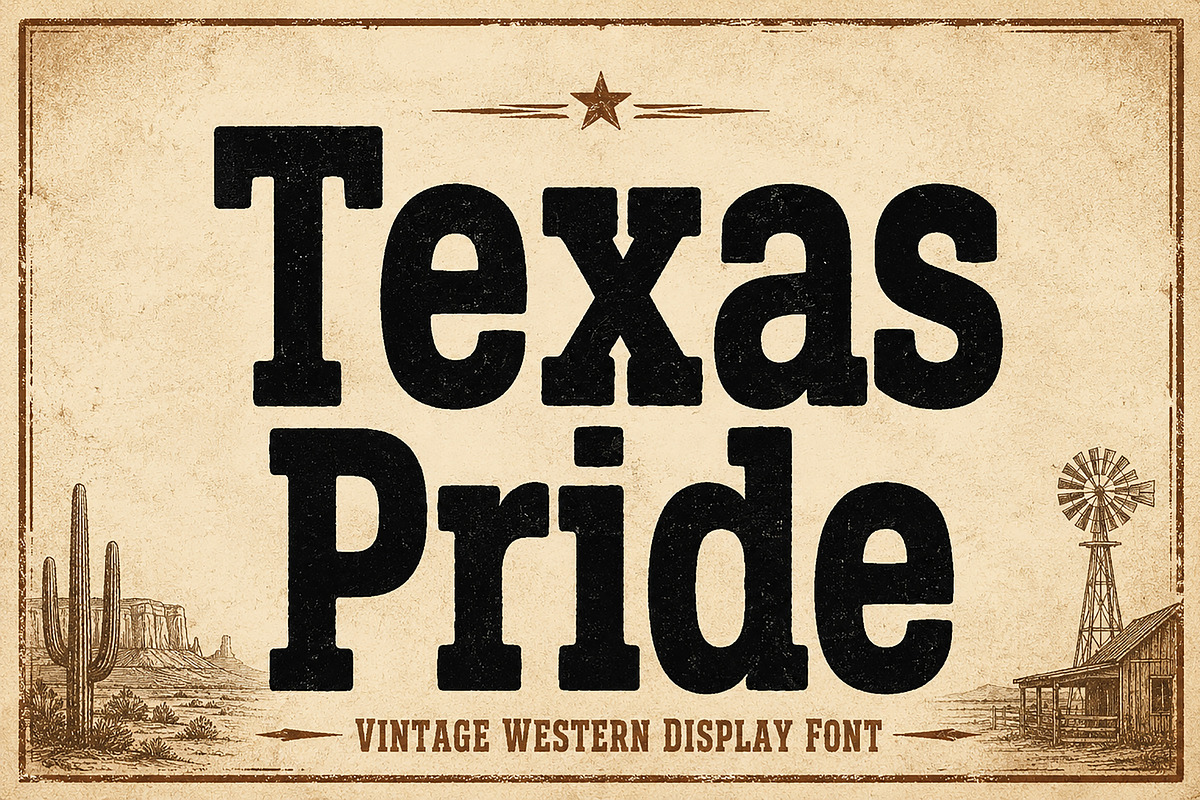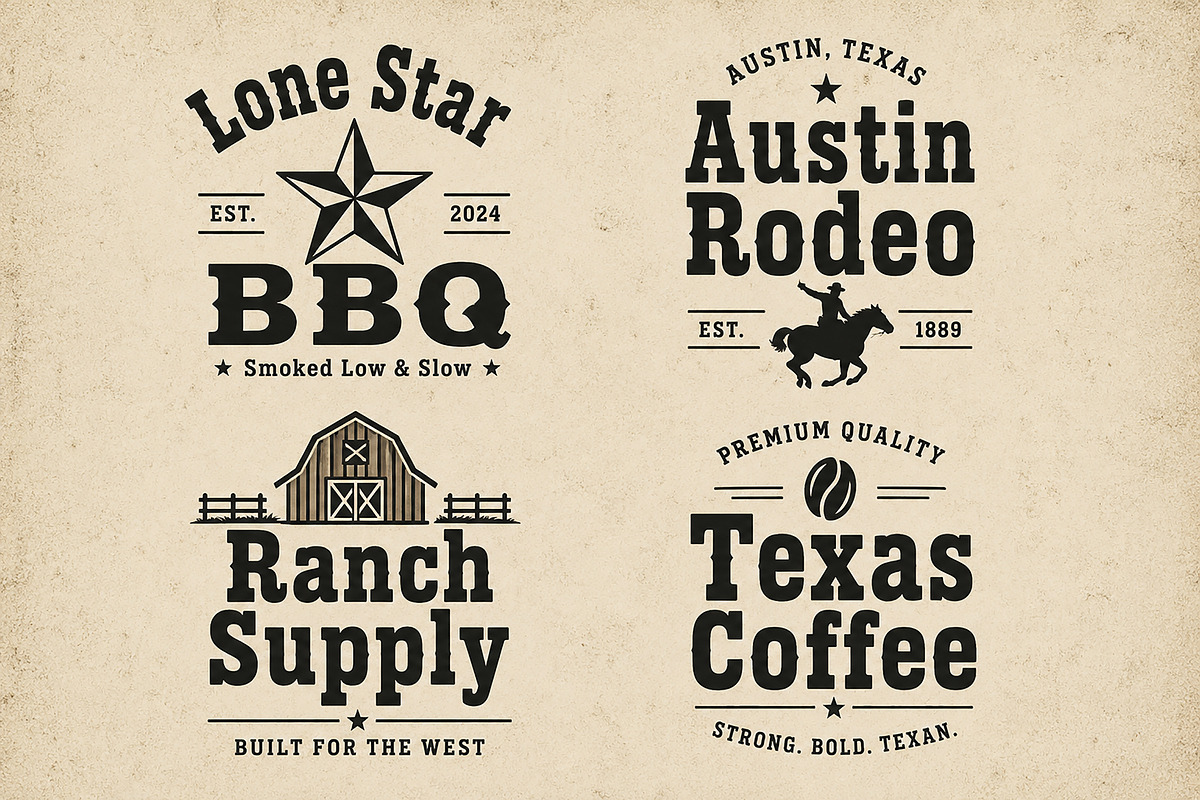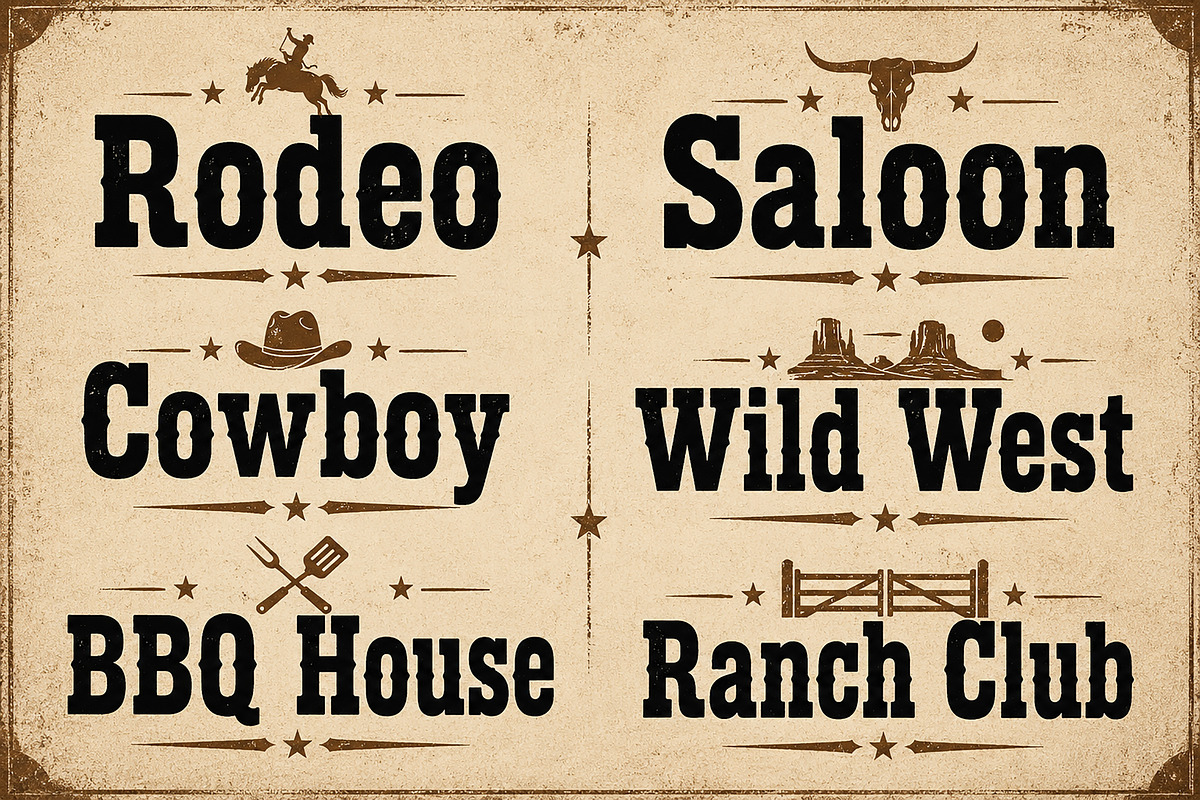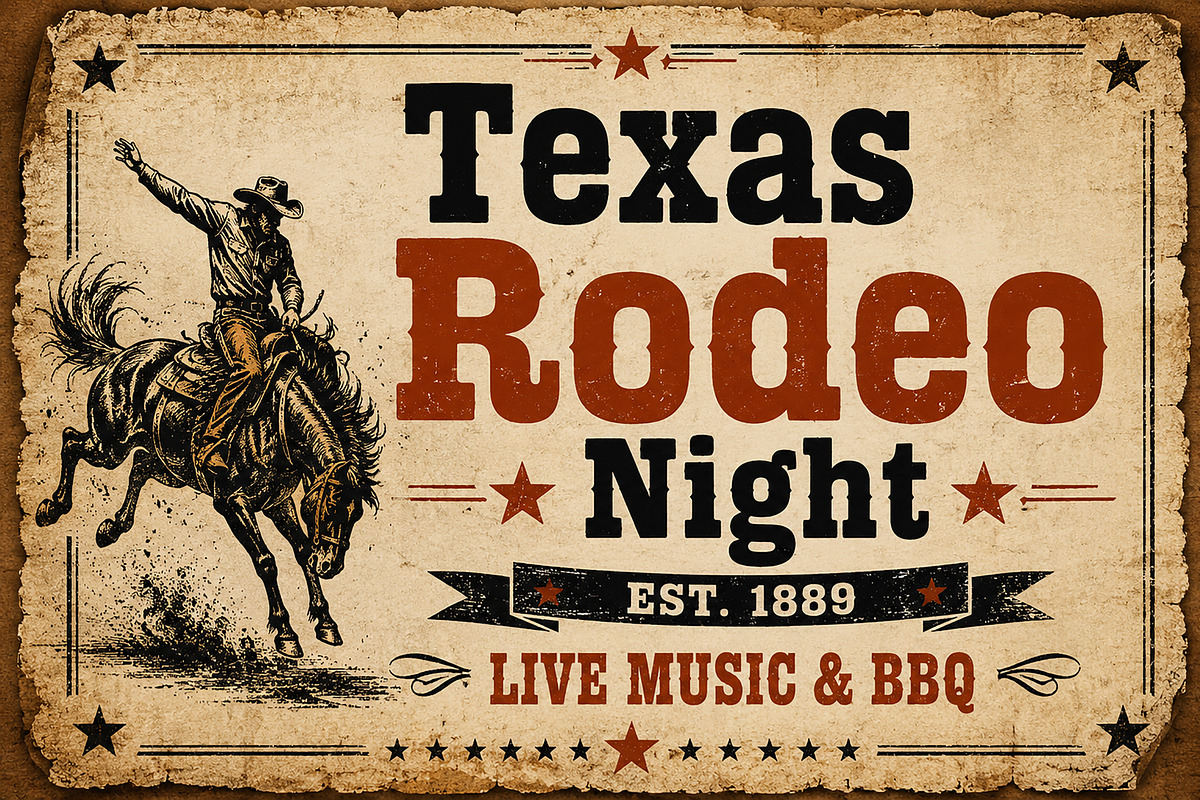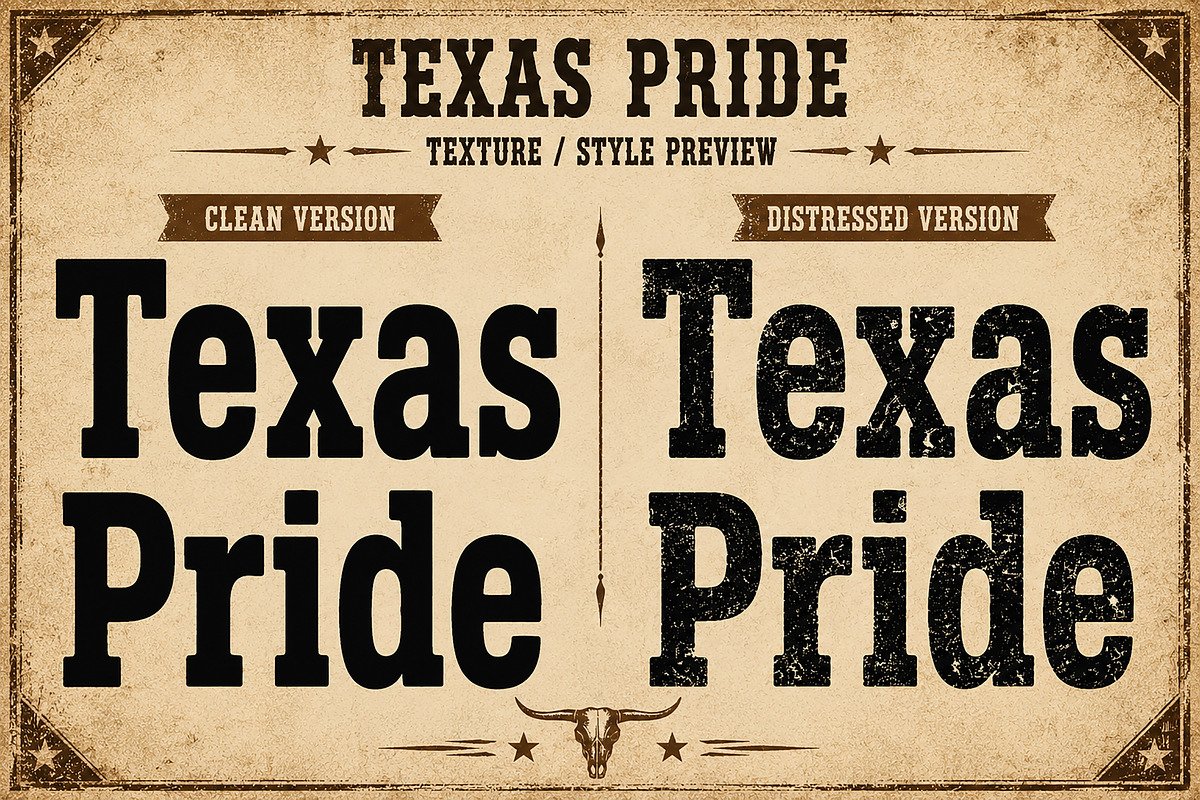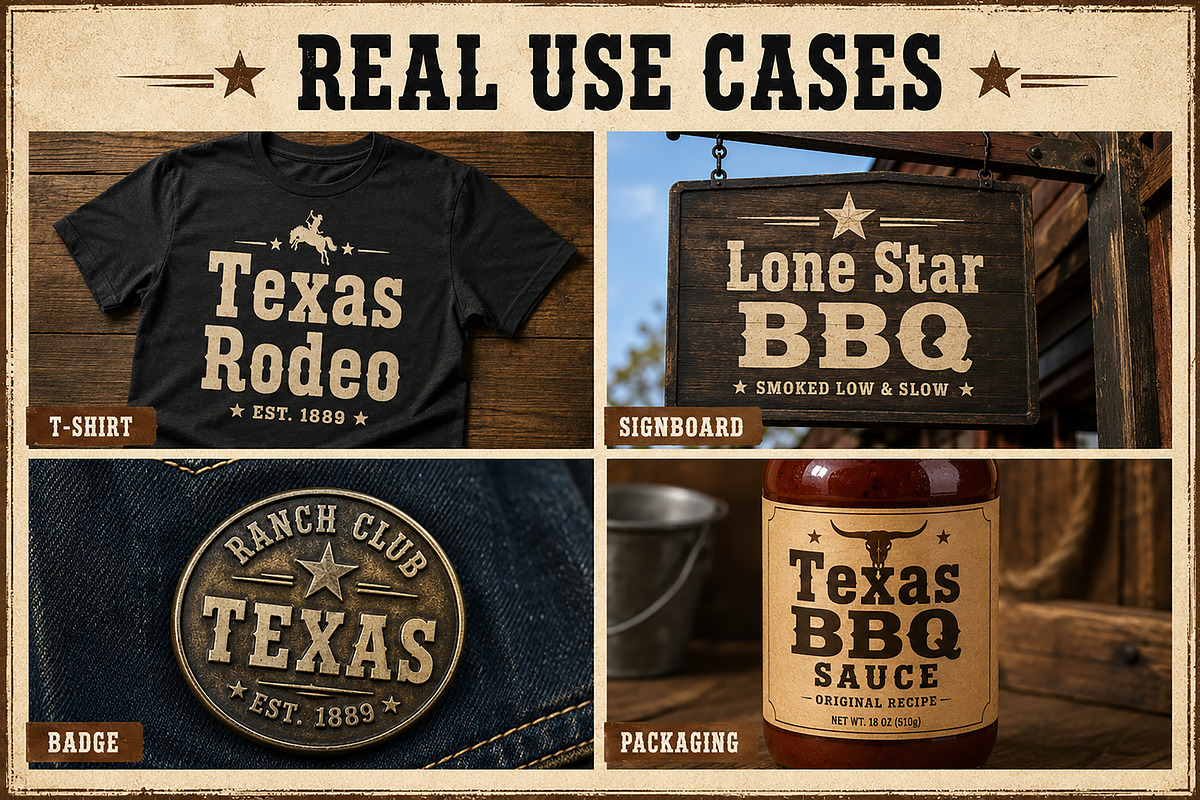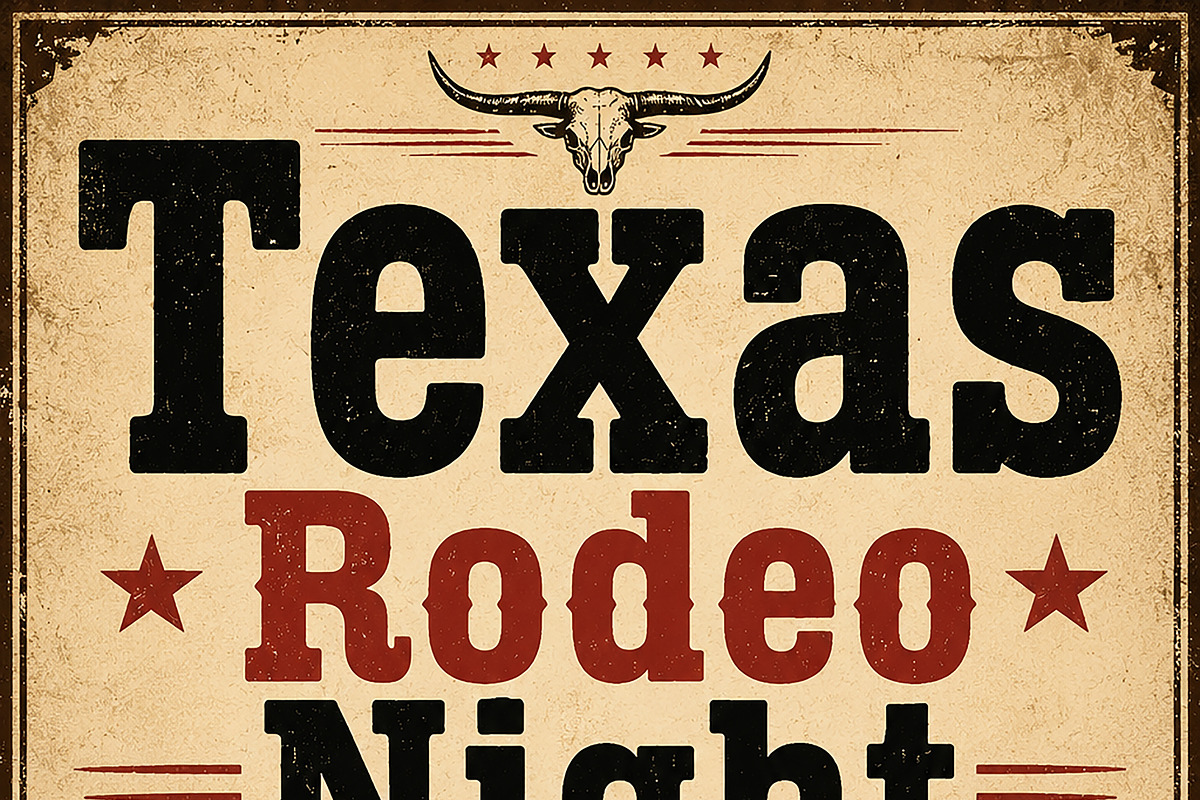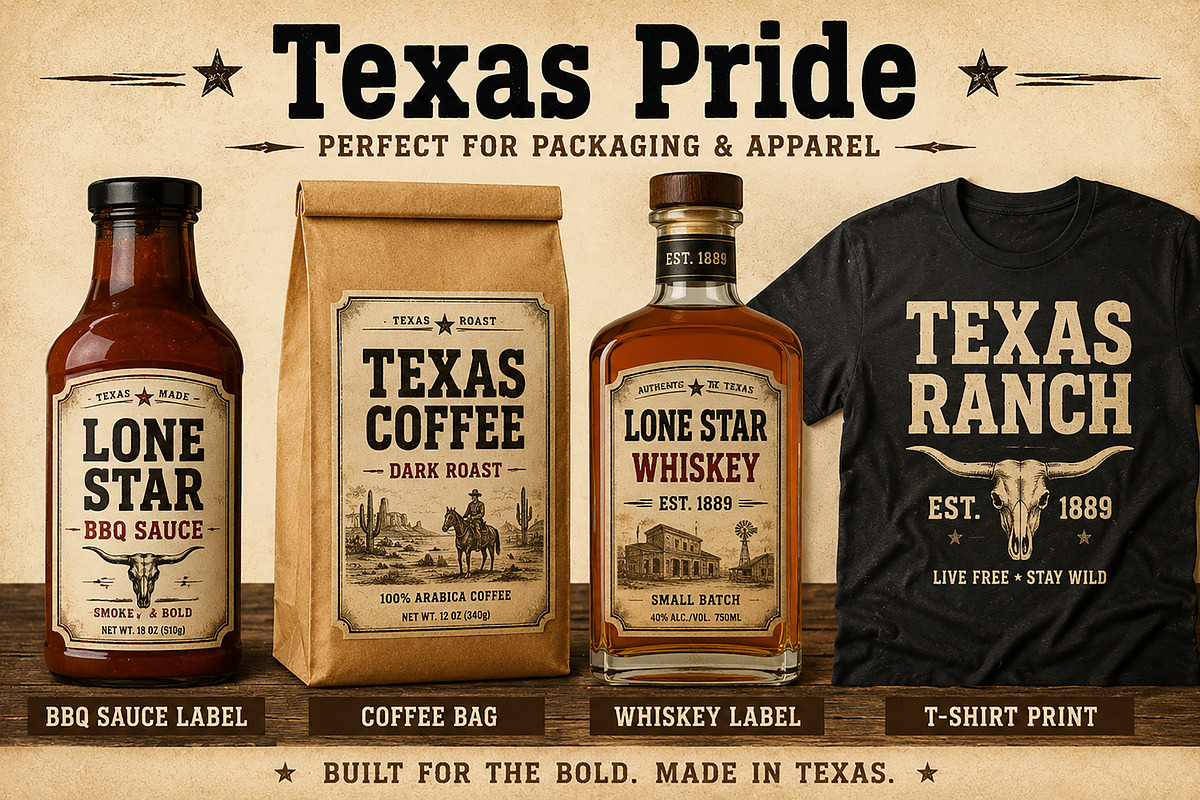
Texas Pride
Texas Pride – Display Font / Western Font / Bold Serif Font
Texas Pride is a bold western-inspired display font with a strong vintage and southern character. Featuring thick serif letterforms and a classic cowboy-style appearance, this font delivers an authentic retro western feel perfect for standout branding and rustic typography projects.
Inspired by traditional Texas culture, ranch signage, rodeo posters, and classic Americana lettering, Texas Pride is ideal for logos, apparel, country music graphics, packaging, barbershop branding, restaurant menus, merchandise, posters, and bold headlines.
Its heavy structure and timeless western personality make every design look confident, rugged, and memorable in both print and digital media.
Western Logos
Texas-Themed Branding
Rodeo Posters
Country Music Graphics
Ranch & Farm Designs
Apparel & T-Shirts
Rustic Signage
Bold Headlines
Bold Serif Style
Western-Inspired Design
Vintage Display Look
Strong Letterforms
Uppercase Characters